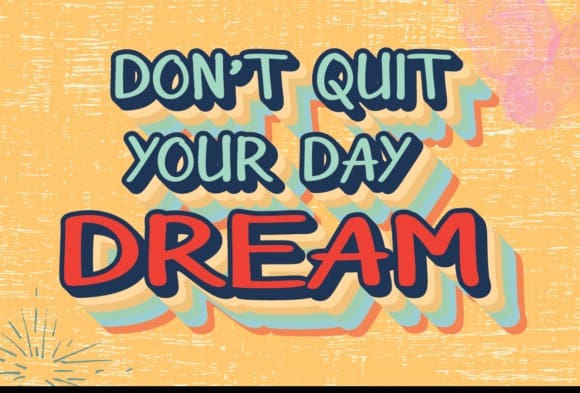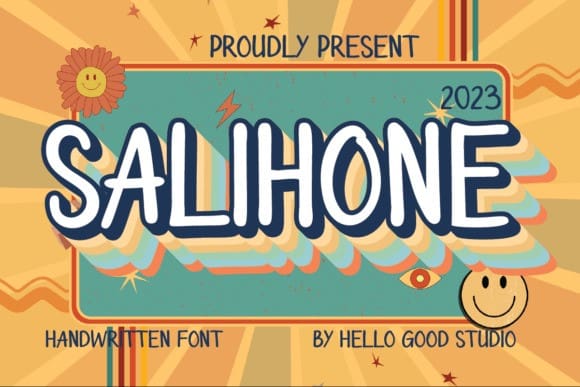
Salihone Font
Salihone Font is a font that depicts the expressions of children who are learning to write, this font is perfect for those of you who need work with children’s themes or for comic themes because it looks very cheerful and legibility is easy for children to read. Make sure you have this font on your device and make your work valuable.